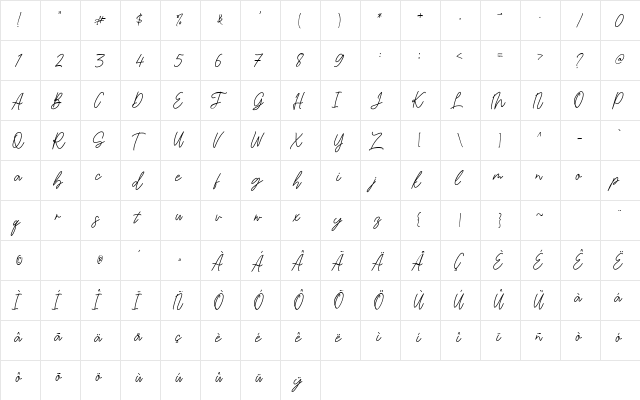
Bambi Handwritten Regular
Design Context for Bambi Handwritten Typeface
Bambi Handwritten brings a calligraphic fluidity to the page — its connecting strokes and expressive curves give it an unmistakably human quality.